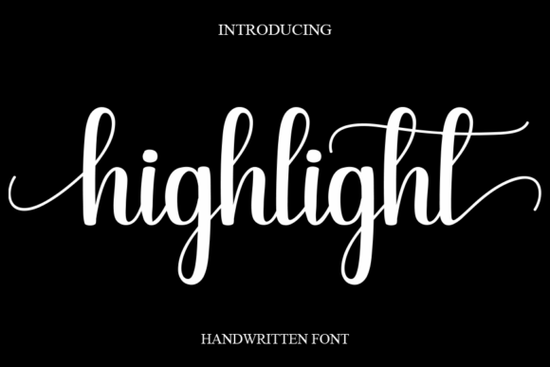
If you're looking for a handwritten font that feels both fancy and casual, Highlight Font might be exactly what you need. This sweet cursive script adds a joyful, romantic touch to any design without looking stiff or formal. It works beautifully for branding, logos, wedding invitations, greeting cards, fashion lookbooks, and marketing promotions. Since it's part of the script fonts category, you can use it to soften a layout or add a personal, hand-lettered feel.
What makes Highlight Font different from other handwritten fonts?
Many script fonts lean heavily into calligraphy or ultra-modern strokes, but Highlight strikes a balance. The letters flow naturally with a gentle bounce, so they feel warm and approachable. This makes it a great choice when you want your project to look elegant but still human perfect for small businesses or personal branding where you want to connect with your audience.
Because it's a cursive font, it pairs well with clean sans-serif typefaces. For example, you could use Highlight for headlines or quotes and a simple sans-serif for body text. This contrast keeps things readable while drawing attention to the decorative elements.
Which projects work best with Highlight Font?
Here are some real-world uses where this font shines:
- Wedding stationery – Save-the-dates, invites, place cards, and thank-you notes all benefit from the romantic swirls.
- Branding for creative businesses – Florists, bakeries, photographers, and boutiques can use it for logos, business cards, and social media graphics.
- Greeting cards and gift tags – The casual elegance makes every message feel more personal.
- Fashion lookbooks and catalogs – Use it for product names or short descriptions to add a handmade touch.
- Marketing materials – Flyers, sale banners, and email headers can become more inviting with a handwritten headline.
If you work with print-on-demand, try Highlight on mugs, t-shirts, or tote bags. The script scale well and keeps its charm even at large sizes.
How to pair Highlight Font with other fonts for better design
Because Highlight has a smooth, flowing style, you'll want to pair it with fonts that don't compete. Sans-serif options like Montserrat or Lato work well. For a more playful contrast, try a simple slab serif. If you need a bold companion, consider Zero Beyond Font its geometric shapes provide a sturdy anchor next to Highlight's curves.
Another great alternative when you want a similar romantic feel but with less bounce is Hello Font. It's also a script but slightly more upright, which can be easier to read in longer passages. For a thinner, more delicate script, The Skinny Font offers a lightweight option that still feels feminine and friendly.
If you're working on a project that needs a vintage or nostalgic vibe, Charming Font shares similar cursive roots but with more ornate flourishes. Pairing it with Highlight can create a layered, heirloom-quality look.
Where to find more script fonts like Highlight
If Highlight isn't quite what you need, browse the Highlight Font script collection for similar styles. For a broader look at handwritten options, the Hello Font page showcases another popular choice. Designers often combine multiple scripts to build a cohesive brand check out the Zero Beyond Font selection for a modern contrast, or the Charming Font category for something more decorative. If you prefer a minimalist script, the Skinny Font page has lightweight alternatives.
Practical tips for using Highlight Font in your next project
Before you download, keep these points in mind:
- Test readability – Because it's cursive, check legibility at small sizes. Use it for headlines, not long paragraphs.
- Adjust spacing – Many script fonts benefit from tighter letter spacing. Try kerning to make the letters connect smoothly.
- Use a solid background – Light or high-contrast backgrounds help the delicate strokes stand out.
- Pair with a simple font – Let Highlight be the star; avoid using more than two typefaces in one design.
- Experiment with color – Soft pastels, dusty rose, or deep navy work wonderfully with this font's romantic feel.